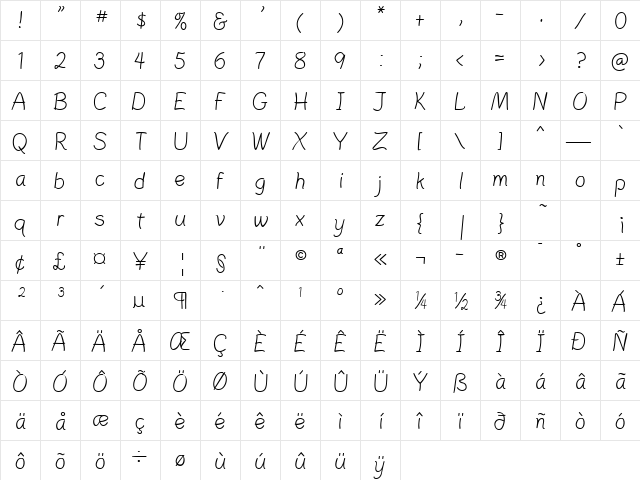
IEOcean2 Regular
Design Context for IEOcean2 Typeface
IEOcean2 is a composed and adaptable typeface that performs quietly and consistently across a wide range of design contexts.